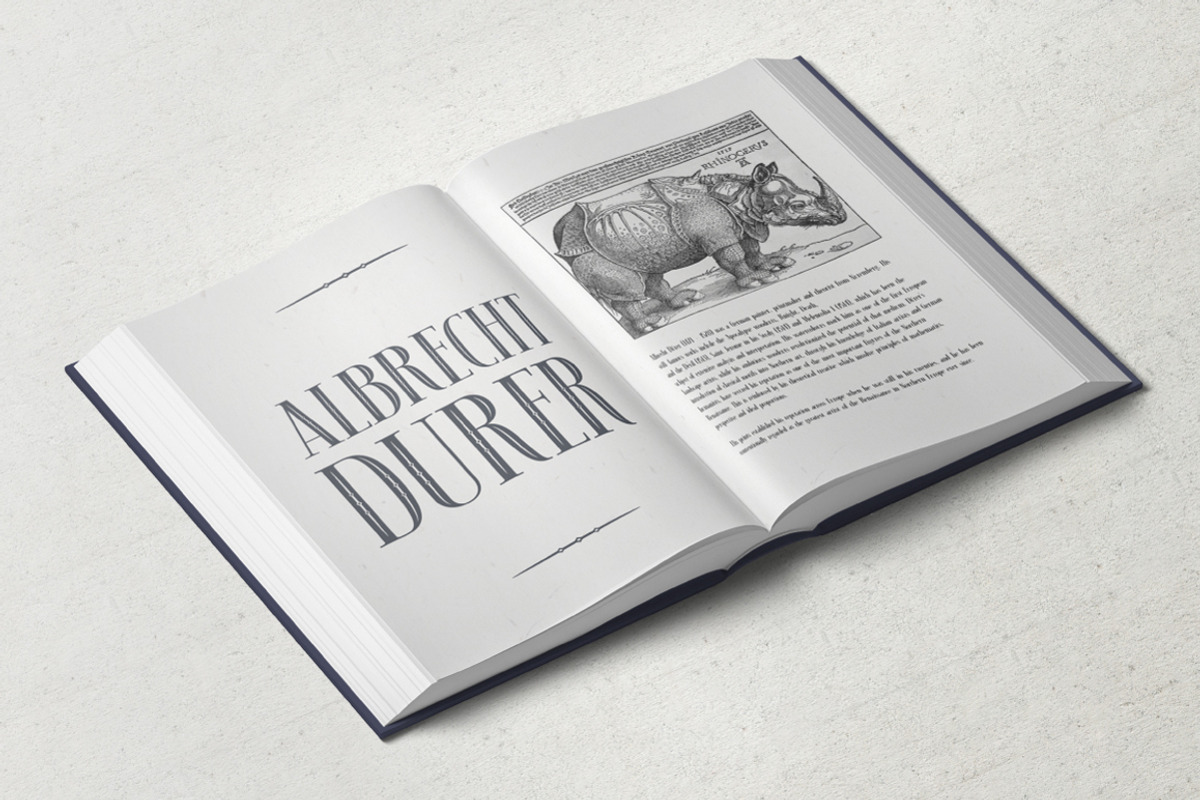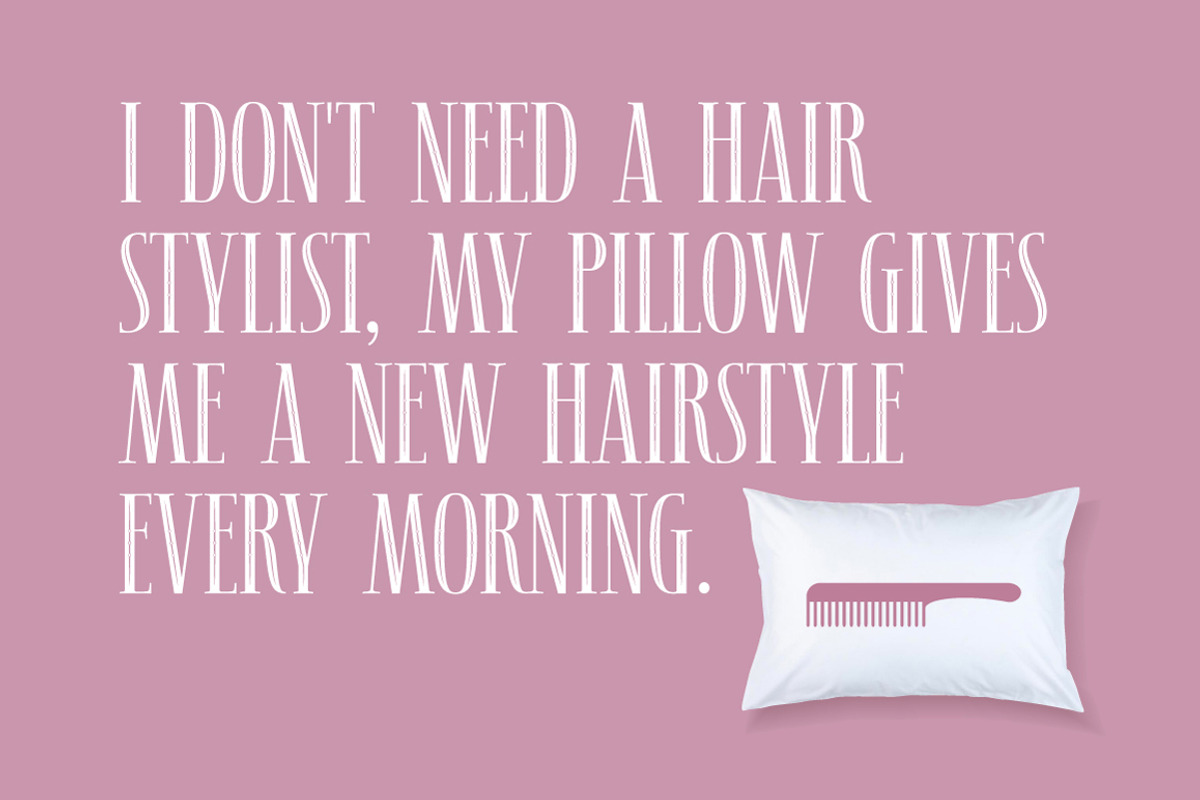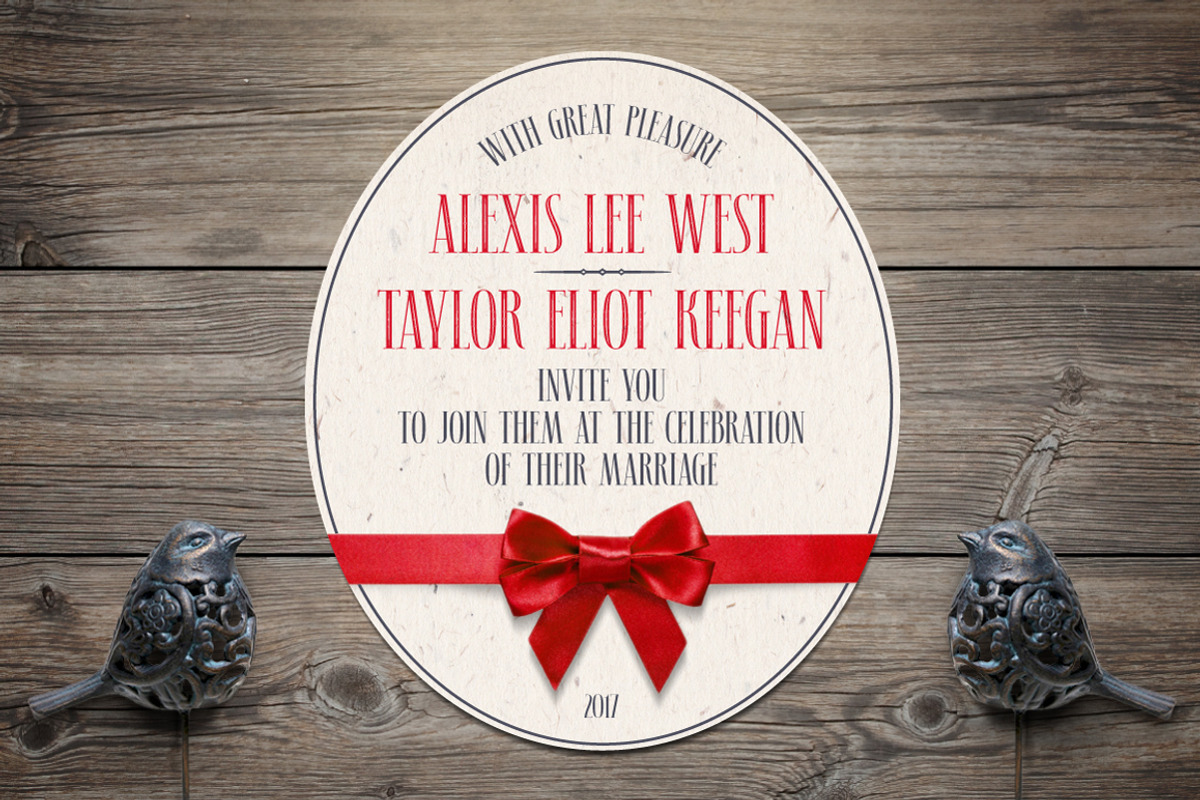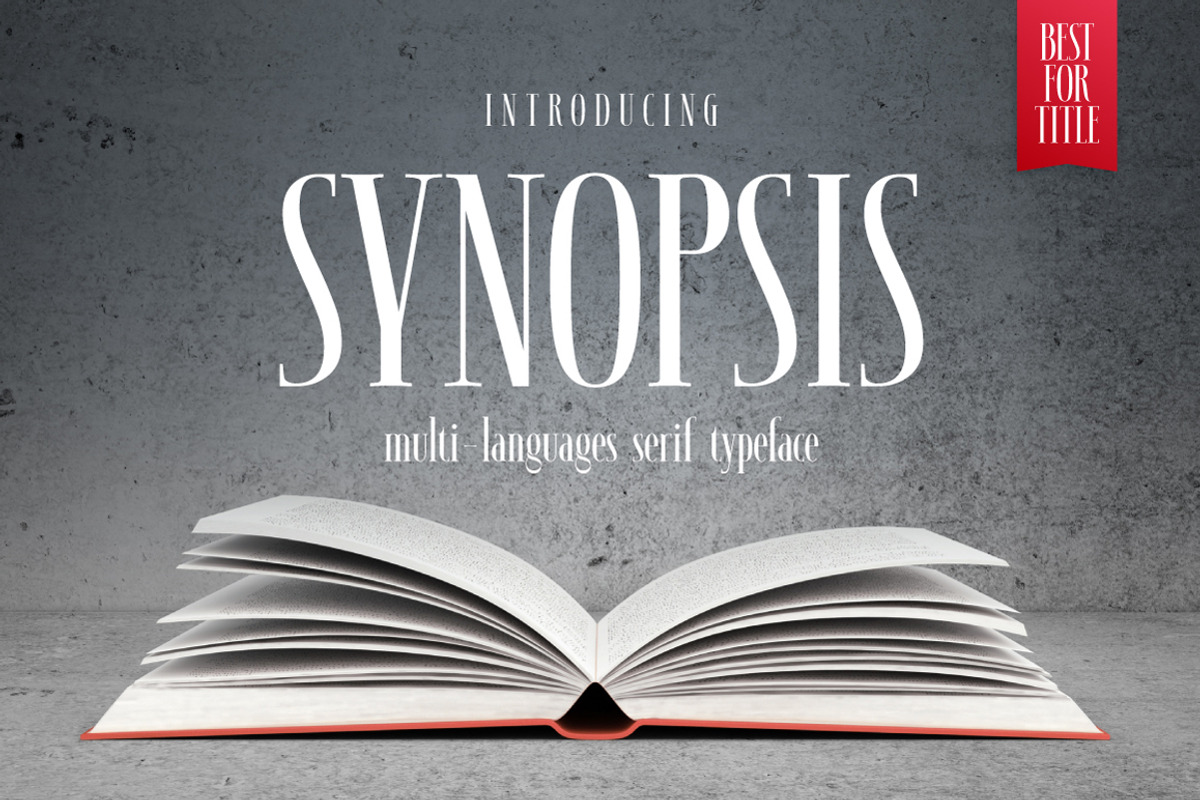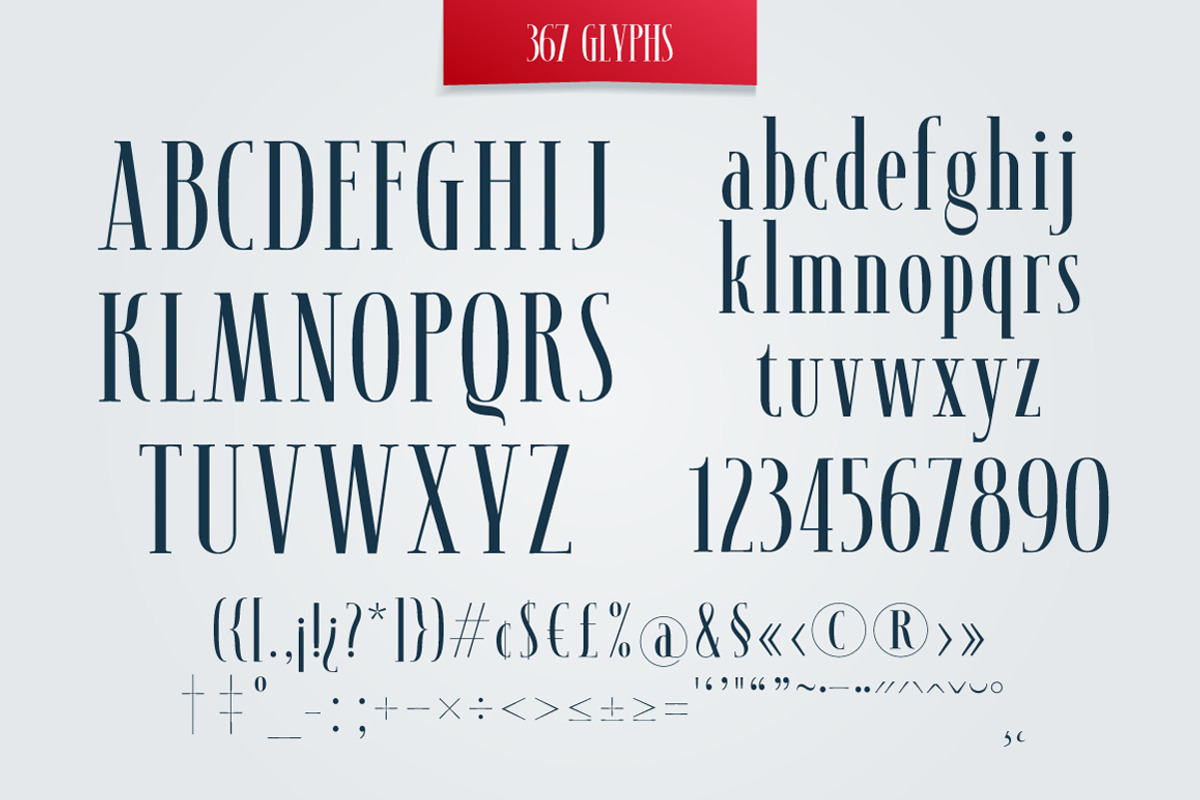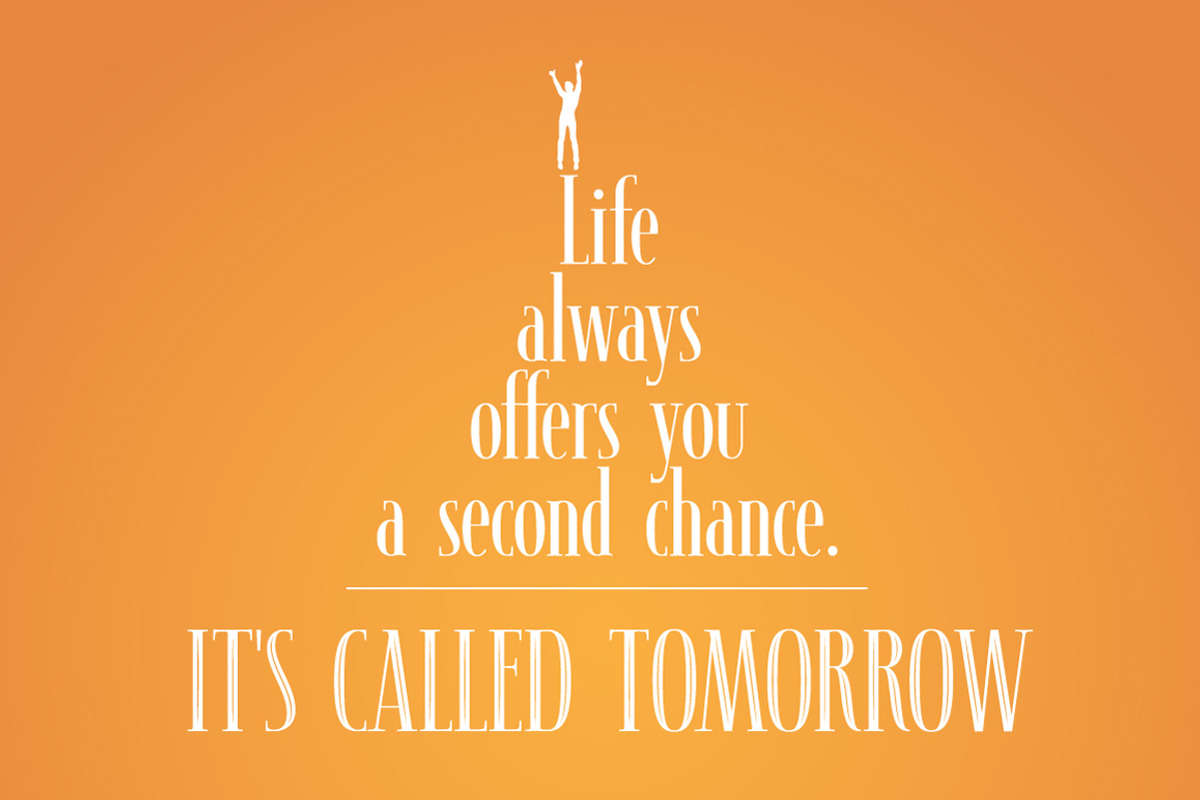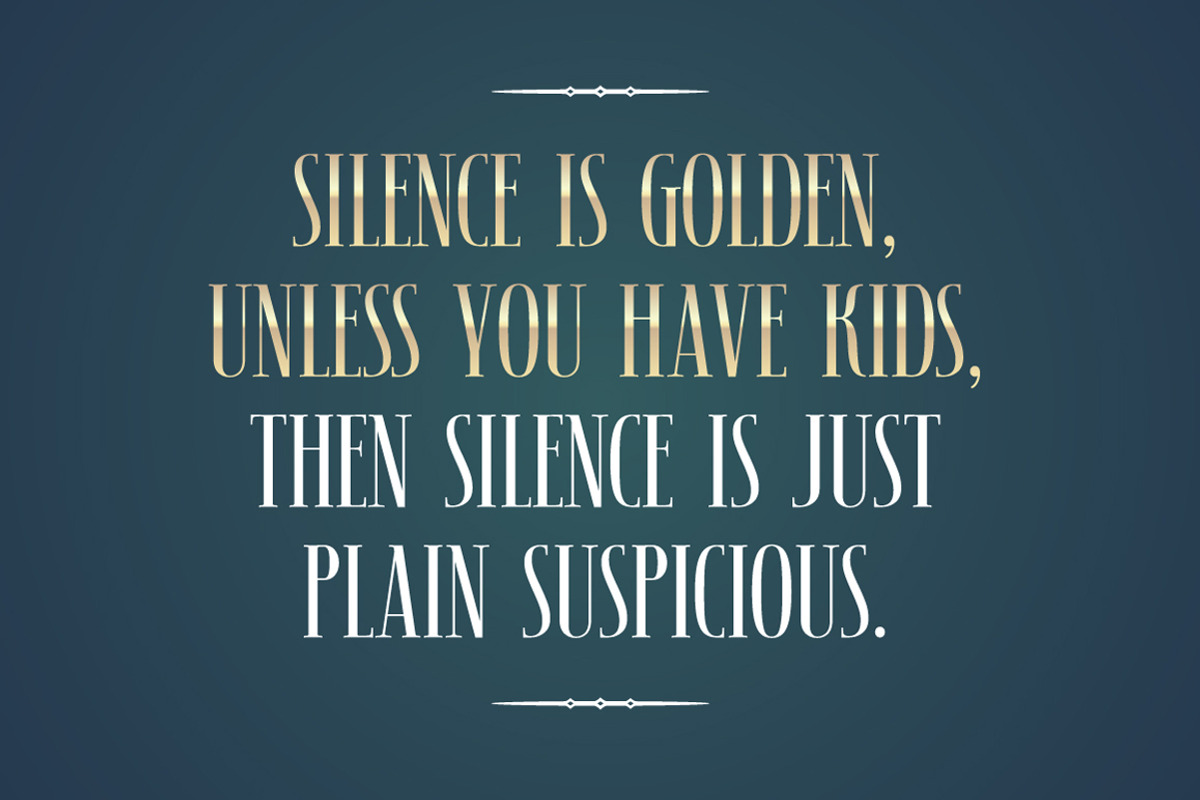
SYNOPSIS typeface
Introducing a new serif typeface SYNOPSIS. Elegant, simple, classic yet distinctive. Perfect for posters, leaflets, books, magazines, presentations as well as logos and blog posts. The font also has two additional styles with special decoration of the letters (note that these styles are only for uppercase). The font includes 367 glyphs in total.
Font is Latin multilingual and have uppercase letters, lowercase letters, numbers and basic punctuations.